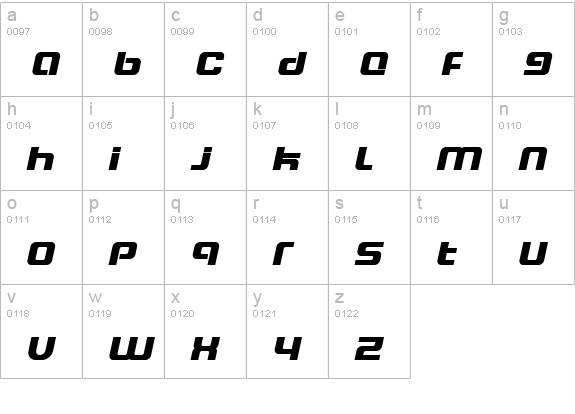
Blaster Eternal Italic is a distinctive, italic variant in the Blaster typeface family \xE2\x80\x94 well suited to design and typography projects.
Blaster Eternal Italic font is a sleek and modern typeface that exudes elegance and sophistication. Its italicized design adds a touch of flair and style to any project, making it perfect for creating eye-catching designs that stand out. The smooth curves and sharp angles of this font give it a dynamic and contemporary look, making it ideal for use in various design projects. What's even better is that Blaster Eternal Italic font is available for free download at FontsMarket.com. This means that you can easily access this stunning font without any cost, allowing you to elevate your designs without breaking the bank. Whether you're working on a professional project or a personal creation, Blaster Eternal Italic font is sure to impress with its versatility and charm. Download it today and add a touch of sophistication to your designs!